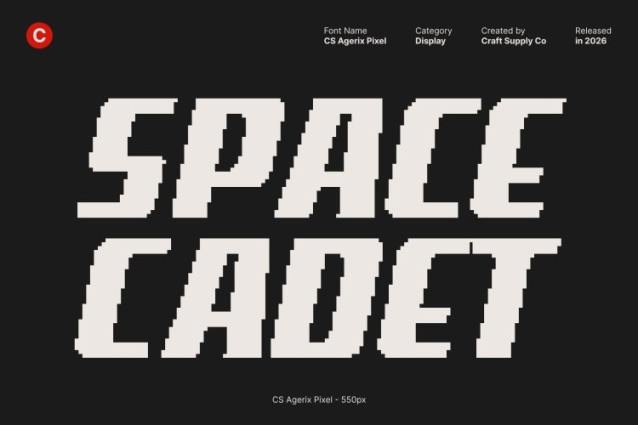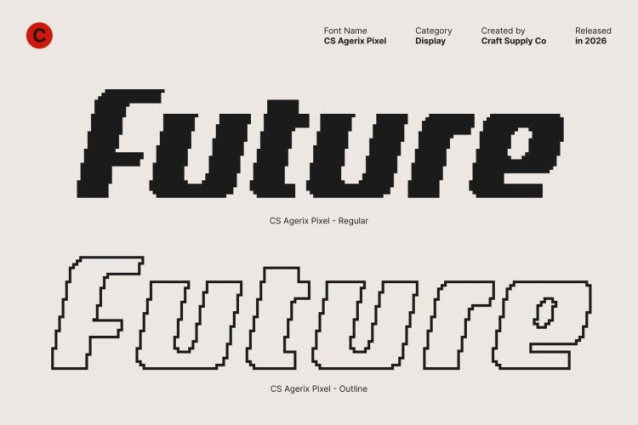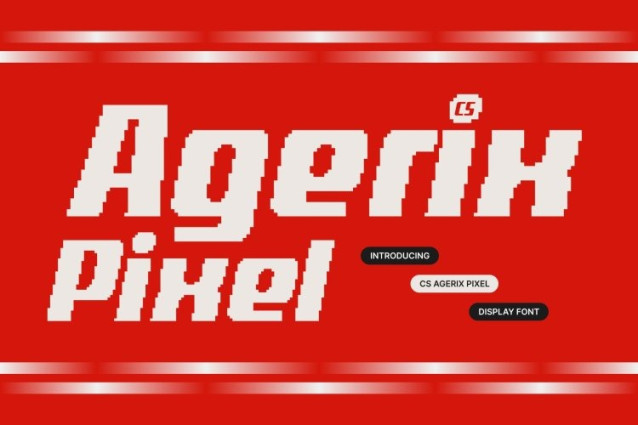
CS Agerix Pixel Font This is a bold geometric sans serif font that fuses industrial strength with pixel-based precision. Its structured letterforms are built from clean, digital units, creating a typeface that feels modern, technical, and highly functional. The pixel detailing introduces an old-digital nuance while preserving a sharp, contemporary presence perfect for designs that demand clarity and innovation.
Strong Structure with Clean, Digital Geometry
At its core, this font is defined by geometric discipline and pixel-perfect construction. Clean lines, balanced proportions, and crisp edges deliver stability and order, while the pixel grid enhances its technical character. This combination ensures high legibility and a strong visual rhythm, making every word appear deliberate, powerful, and precise.
Industrial Aesthetic with Modern–Retro Tech Appeal
Inspired by industrial and technological design, this font communicates strength, efficiency, and reliability. The bold forms feel mechanical and confident, while the pixel treatment adds a subtle retro-digital flavor reminiscent of early computer systems and futuristic interfaces. This blend of industrial toughness and digital nostalgia creates a unique modern identity.
Versatile for Branding, Tech, and Creative Projects
From branding and logo design to techno layouts, posters, and digital interfaces, this font adapts effortlessly. Its bold presence and pixel-based geometry make it ideal for projects that aim to express innovation, precision, and forward-thinking design ensuring your visuals feel modern, structured, and unmistakably impactful.